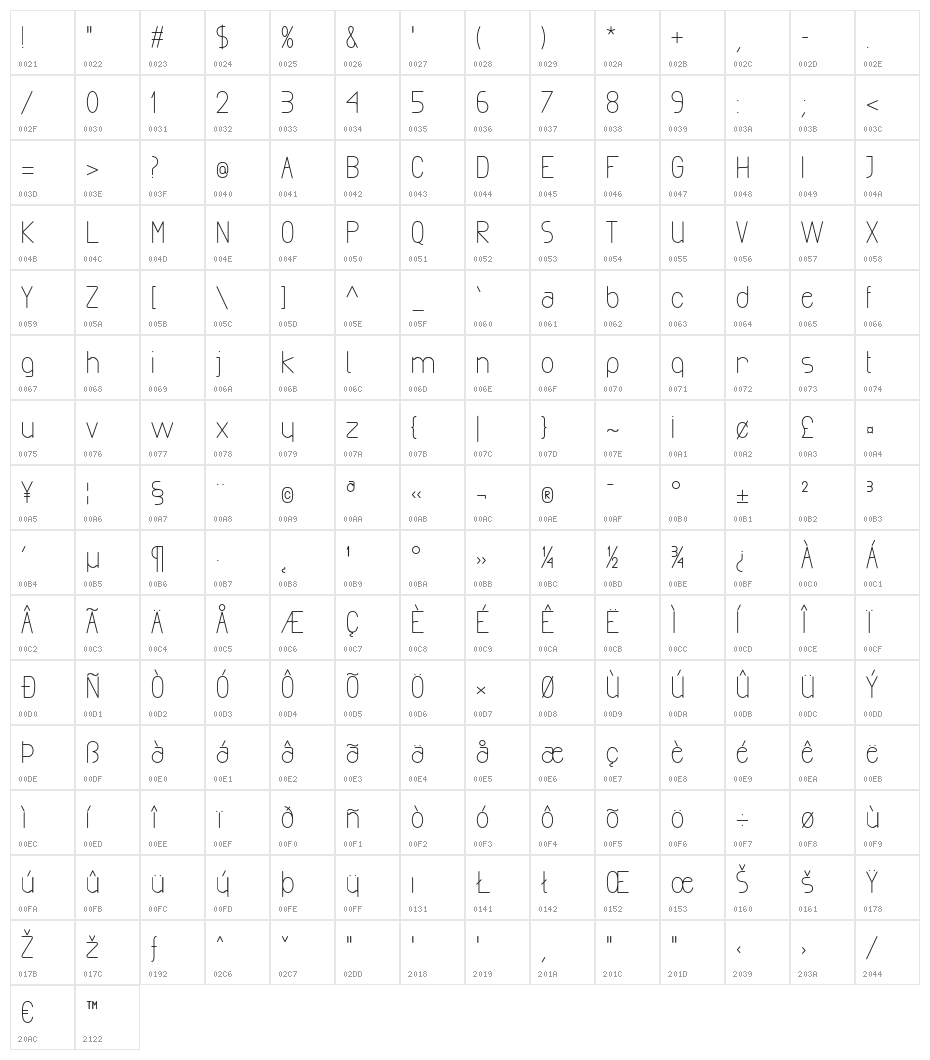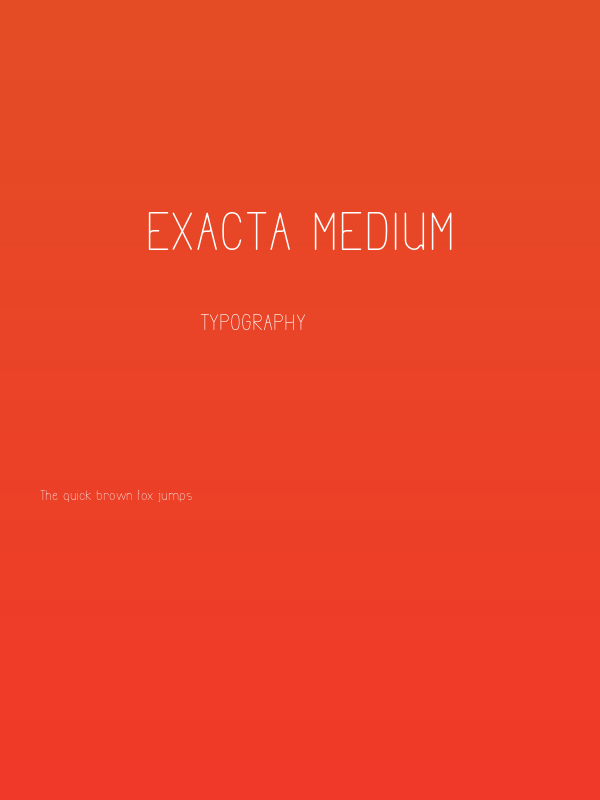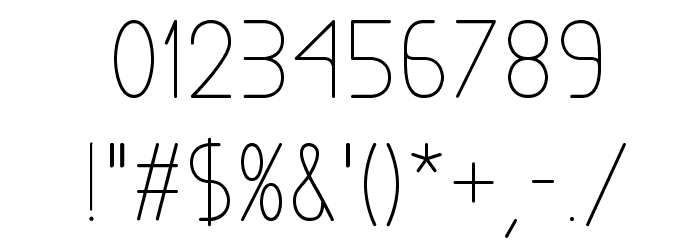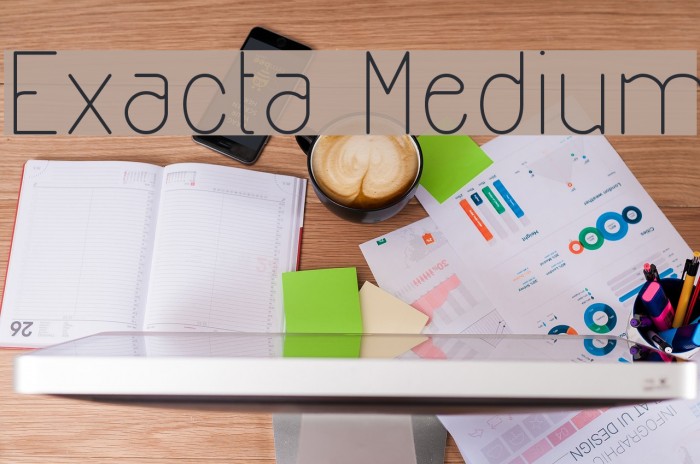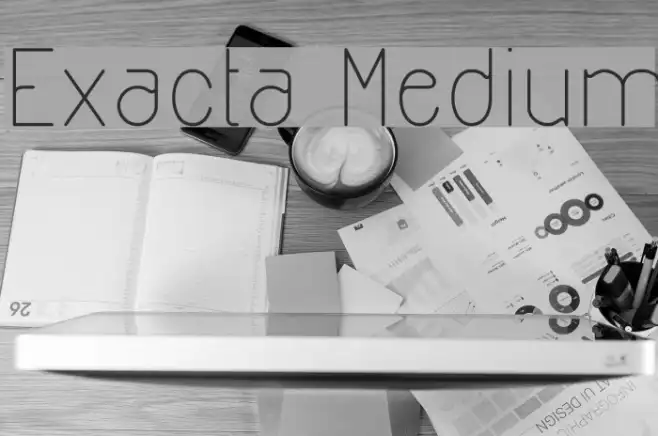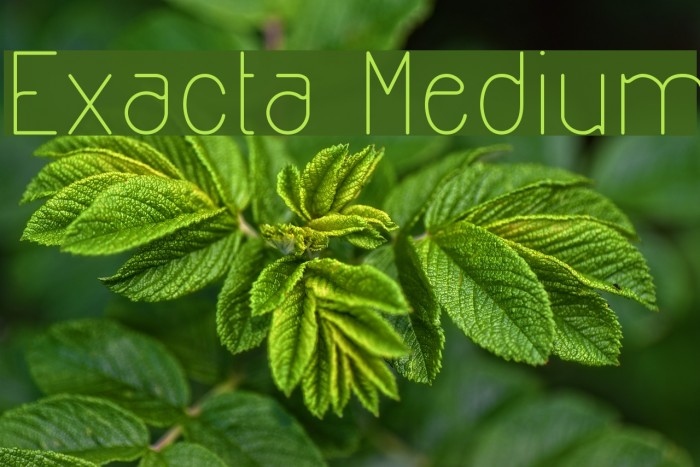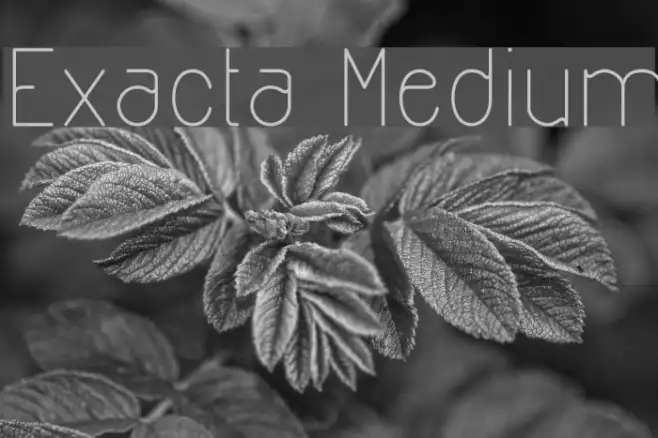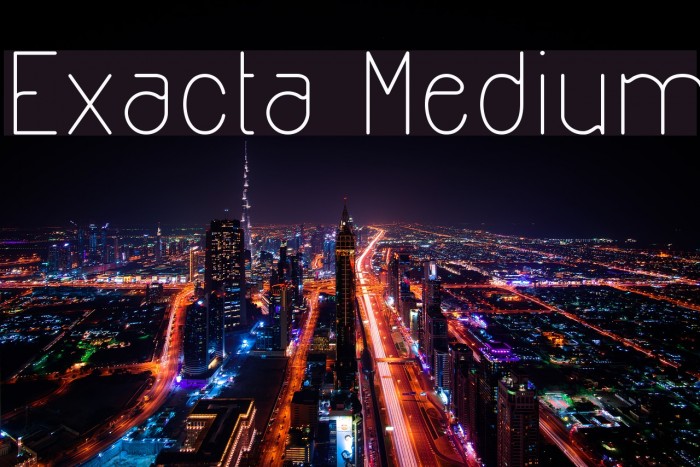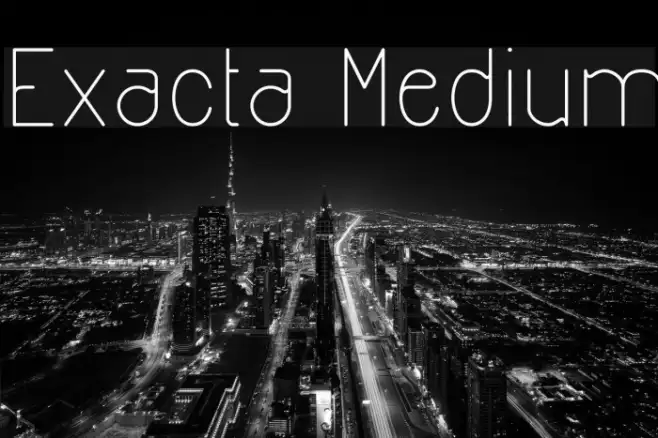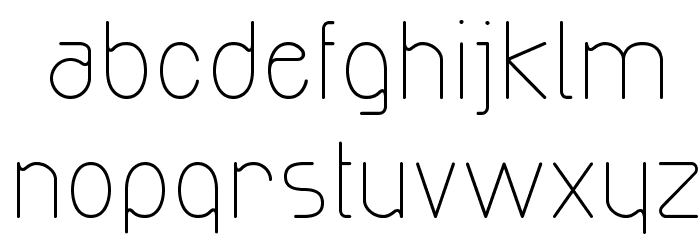
Exacta Medium Font
Exacta Medium Description
This font features a clean and modern sans-serif style with a geometric structure. The characters are evenly spaced with a consistent stroke width, giving it a balanced and harmonious appearance. The uppercase letters are tall and slightly narrow, while the lowercase letters maintain a similar width, creating a cohesive look. The numerals are clear and legible, matching the overall aesthetic of the alphabet. Special characters are designed to blend seamlessly with the rest of the font, making it versatile for various applications. The simplicity and clarity of this font make it suitable for both digital and print media.
| Proposed Projects | Ideal for branding, web design, advertising, and editorial layouts. |